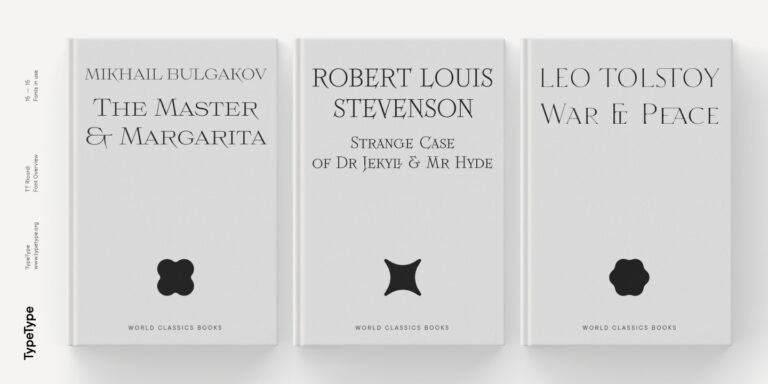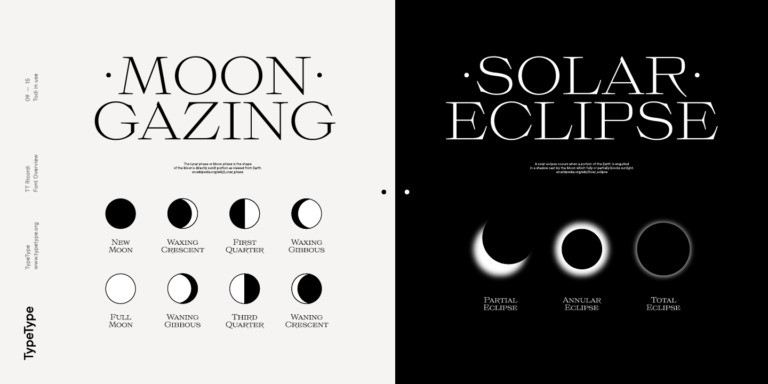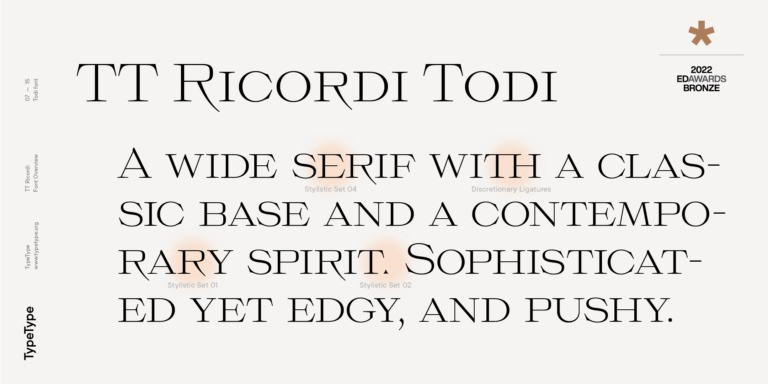
TT Ricordi Todi Font
TT Ricordi Todi Serif Font, Its optimum legibility, clean, and geometric look is perfect branding, brochures, greeting cards, quotes, posters, stationary, design titles, blog headers, and much more.